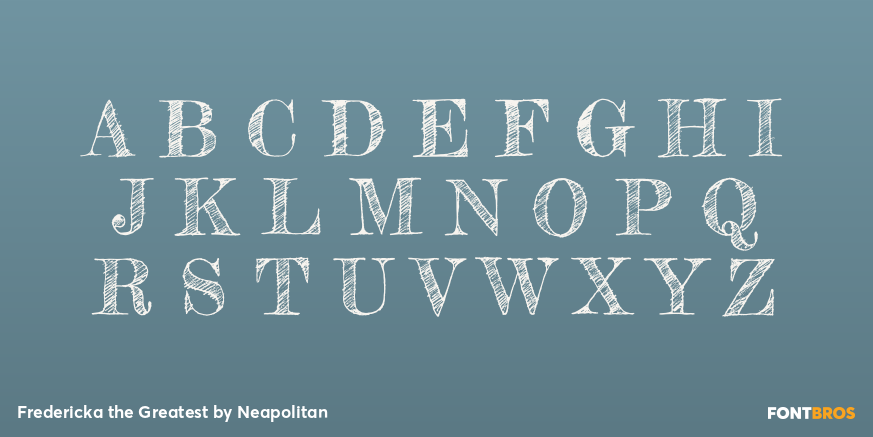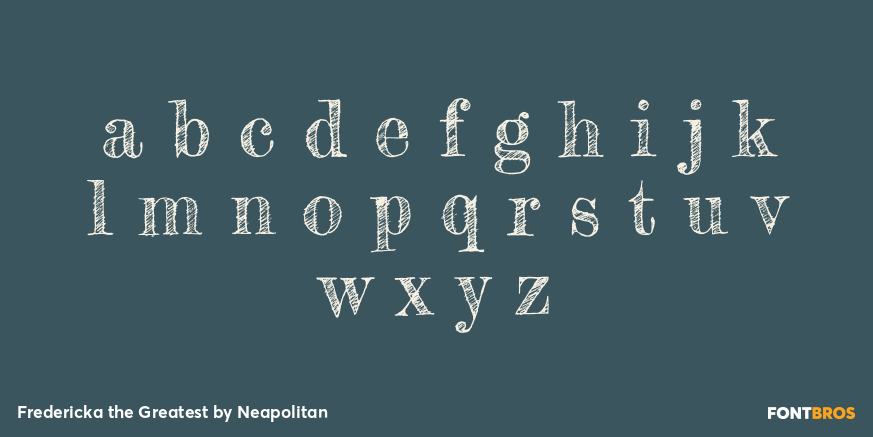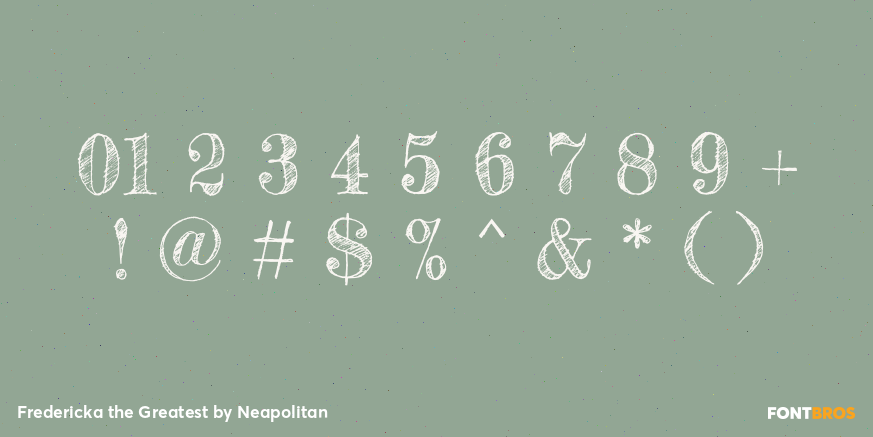
Fredericka the Greatest
Font Family by Neapolitan
Fredericka recalls my college days of nights spent creating handdrawn presentation boards, architectural sketches and student union posters. She's fun, she's casual, she's preppy, she's classic, she's the Greatest!